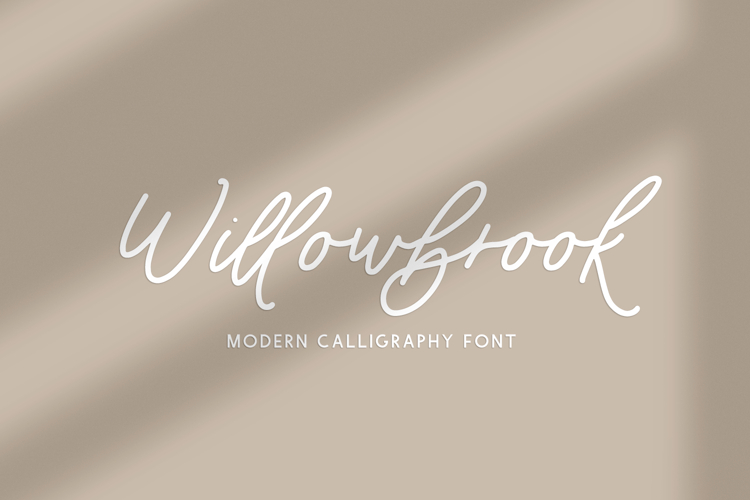
Willowbrook Script
Introducing Willowbrook, a modern calligraphy script. Willowbrook has modern, sleek lines and an effortless handwriting aesthetic.
Willowbrook is best for:
- feminine, crafty projects with your Cricut or Silhouette machine, or your SVG design business
- farmhouse decor and crafts
- holiday cards or greeting cards
- website design + website accents, blog design
- feminine graphic tee shirt design & other apparel
Willowbrook includes:
- 27 lowercase alternate characters
- 13 ligatures - ao, ar, ax, dx, er, ir, jo, or, sp, ss, tt, ur, yo